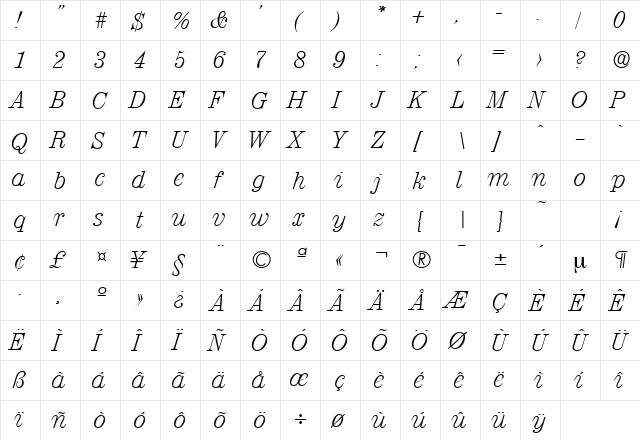
Valencia-Serial-ExtraLight RegularItalic Font Preview
Design Context for Valencia-Serial-ExtraLight Typeface
Valencia-Serial-ExtraLight offers clean, dependable letterforms without strong stylistic allegiance, making it a practical choice for designers who need flexibility. Its italic angle brings a sense of urgency and motion to the letterforms. Its slender proportions lend an understated elegance to any composition.